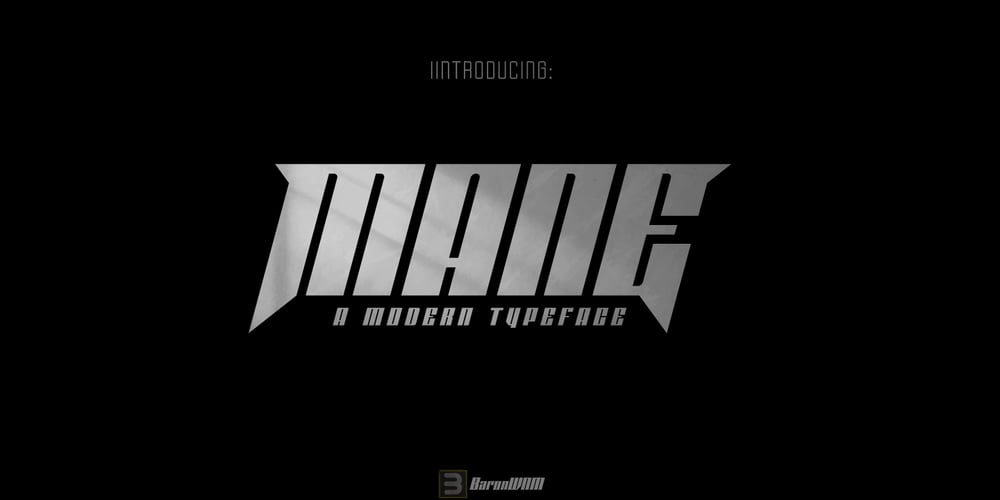
Mane Font Family was designed by Rahmad Mulyadi and published by BaronWNM. Mane contains 1 styles and family package options. Mane is a display font with a slant block shape. thick on the vertical line and thin on the horizontal line. have a firm and solid impression. Suitable for writing titles, posters, games, ad taglines, sports, space, etc. has an alternate start and end on each capital letter and several ligatures in order to add variations to each usage.